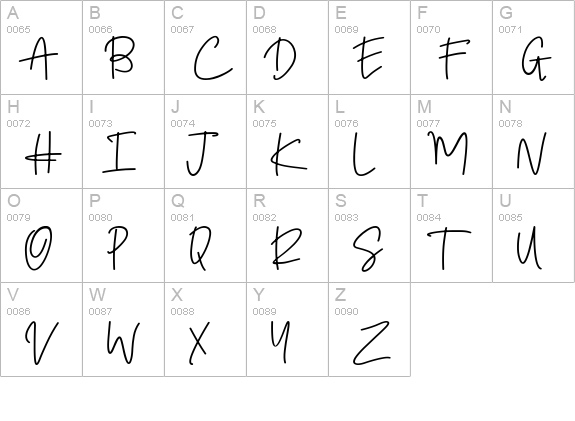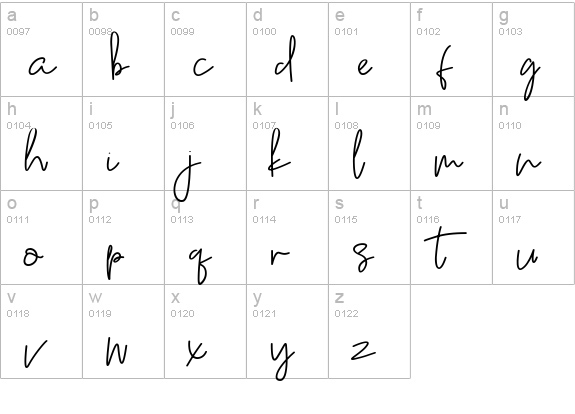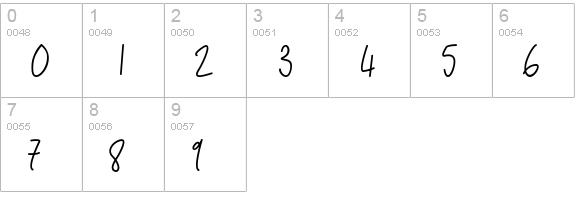
Anggeliana Font Details
Anggeliana is a free for personal use font in the Script > Calligraphy category, designed by Fana Studio. It has been downloaded 411 times and is available for Windows, Mac and Linux.
Anggeliana font is a stylish and elegant typeface that exudes sophistication and charm. With its graceful curves and intricate details, Anggeliana font is perfect for adding a touch of class to any design project. Whether you're working on invitations, branding, or editorial design, this font is sure to make a statement.